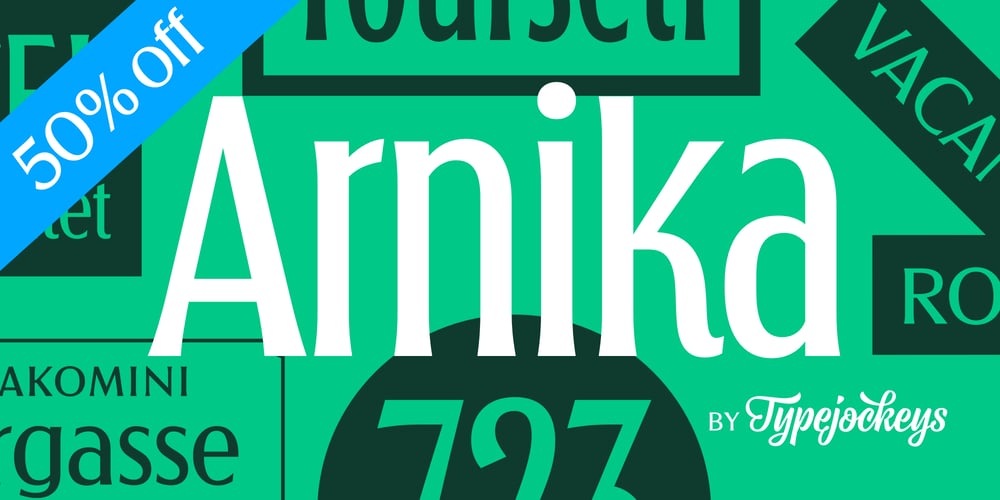
Arnika Font Family was designed by Michael Hochleitner and published by Typejockeys. Arnika contains 5 styles and family package options. This charming type family comes in four widths: Regular, Semi Condensed, Condensed and Extra Condensed – bringing flexibility and diversity to your drawing table. Crisp details convey confidence without losing fineness. Arnika is your ally for all things classy. Although it is a match made in heaven for beauty products and fashion magazines, we leave its usage to your imagination.